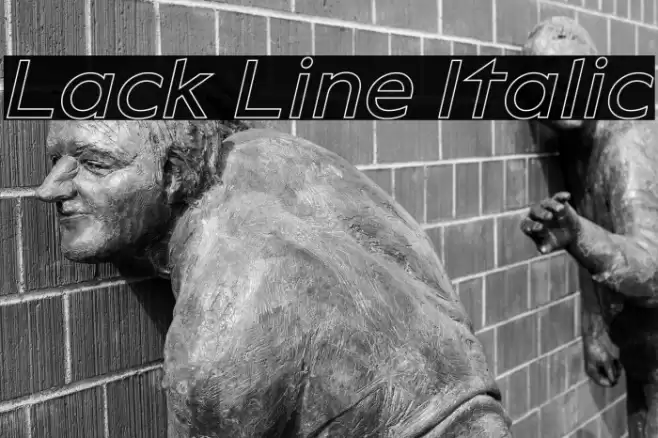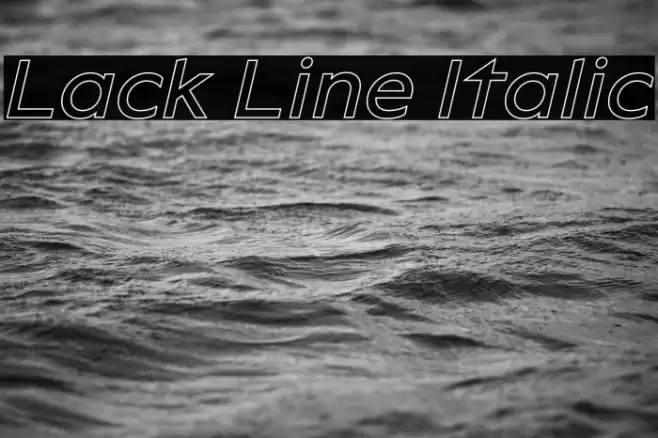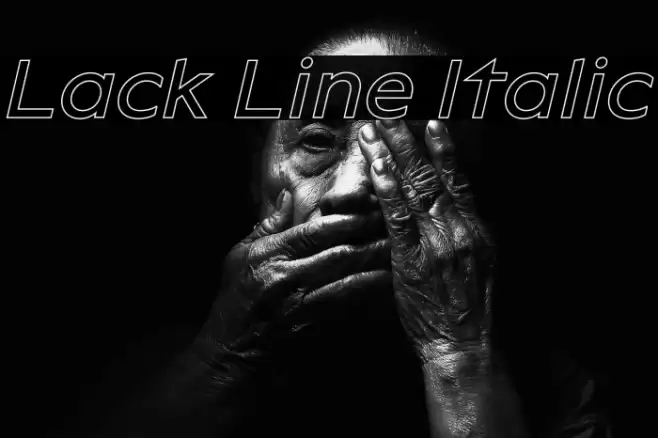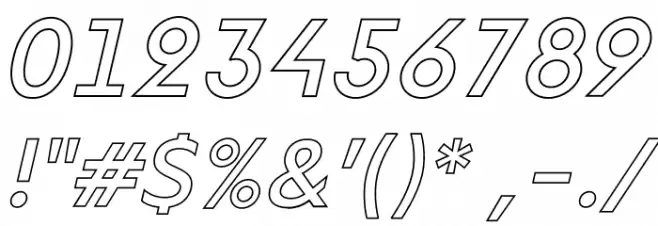
Lack Line Italic Font
Lack Line Italic Description
This font features a sleek, modern design with a distinct italic slant, giving it a dynamic and forward-moving appearance. The characters are outlined, creating a hollow effect that adds a unique visual interest. The uppercase and lowercase letters maintain a consistent style, with smooth curves and clean lines. The numerals are equally well-crafted, ensuring readability and aesthetic appeal. Special characters are included, matching the overall style and enhancing the font's versatility. This font is ideal for projects that require a contemporary and stylish look.
A modern, italic, outlined font with a dynamic and sleek design from Uncategorized fonts.
- Proposed Projects: Ideal for branding, advertising, modern web design, and editorial layouts.